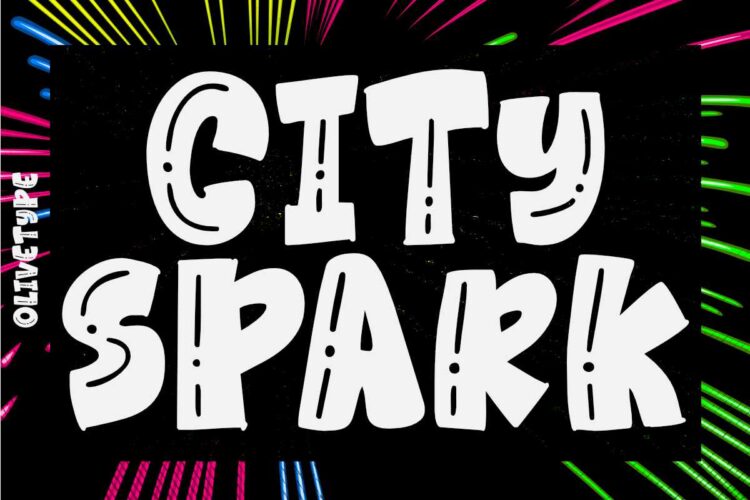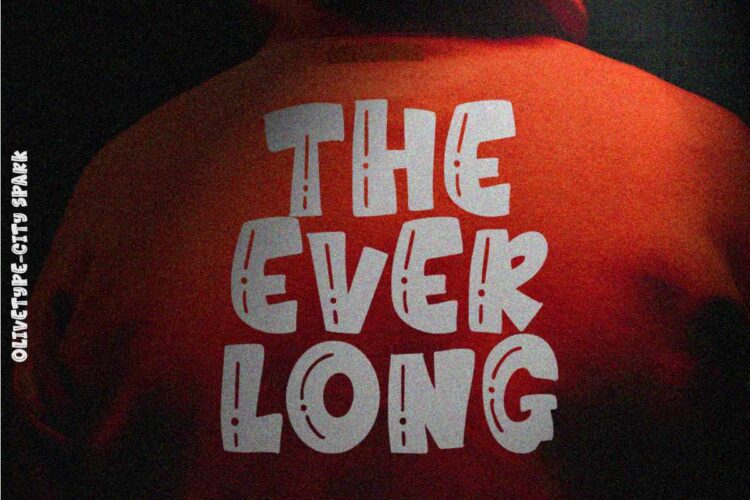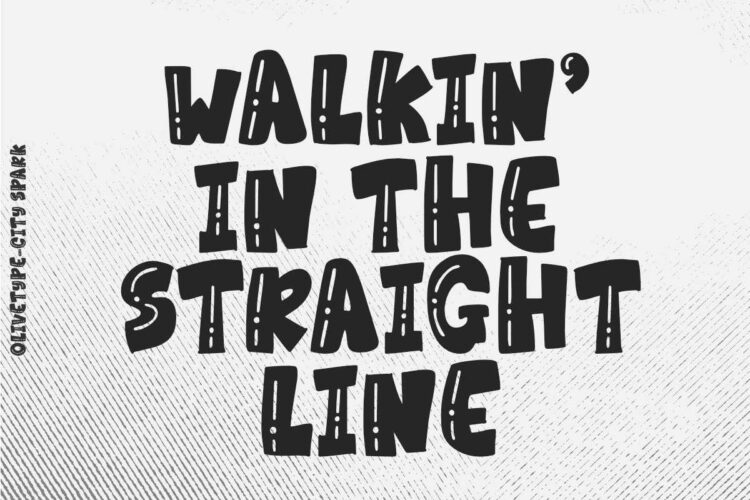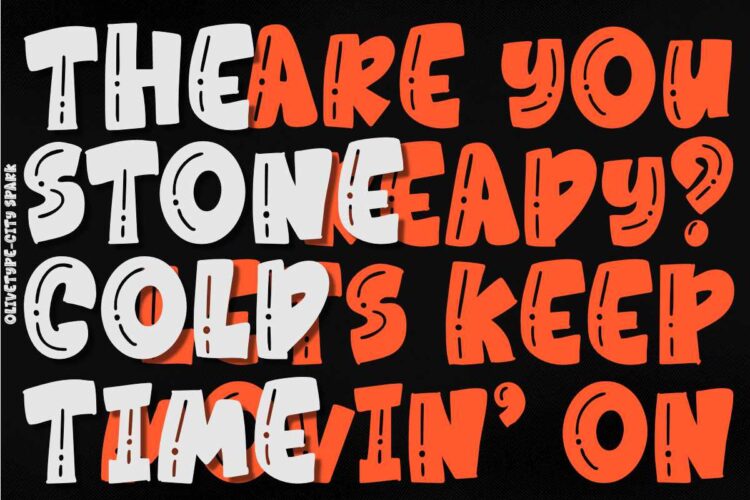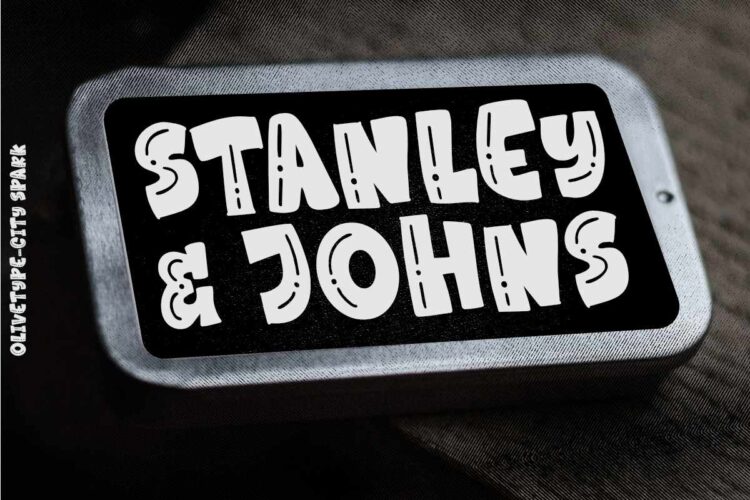
City Spark is a playful hand-lettered font that is a good option for posters, headlines, logotypes, product packaging, movie titles, and more. With its unique character and charm, City Spark can make your next project stand out from the crowd.